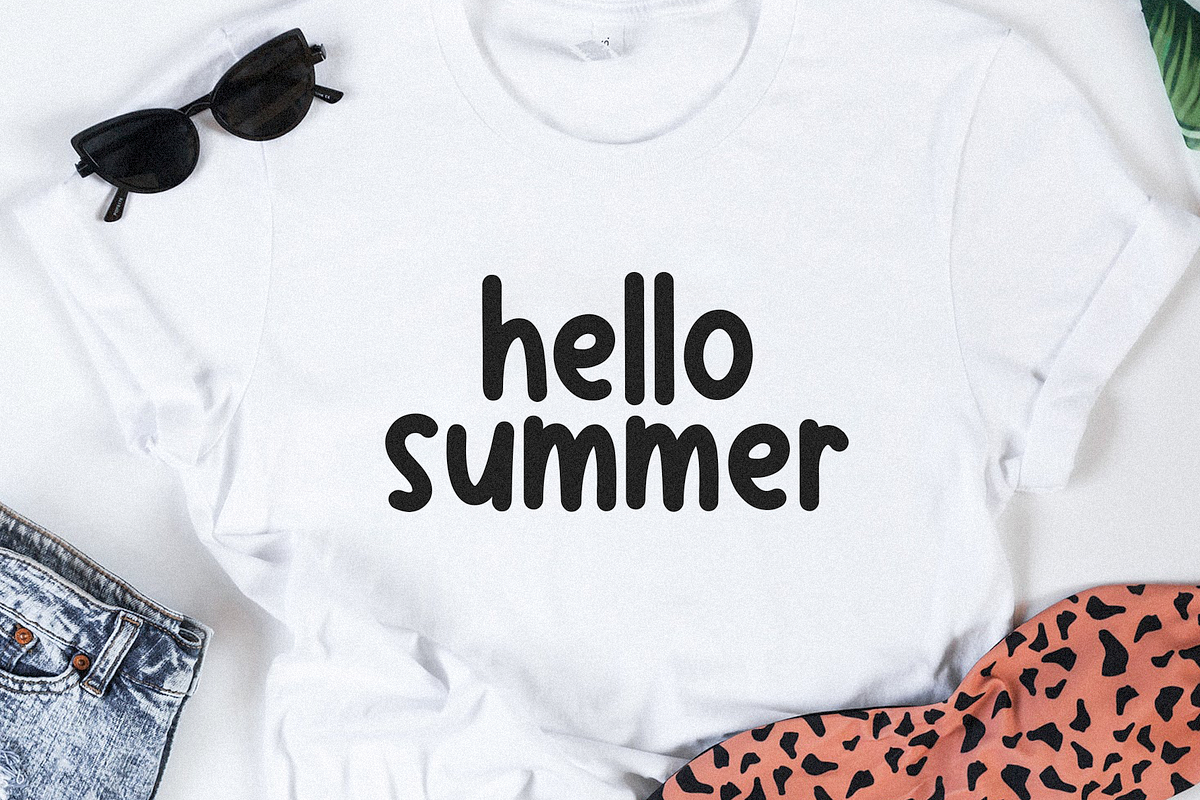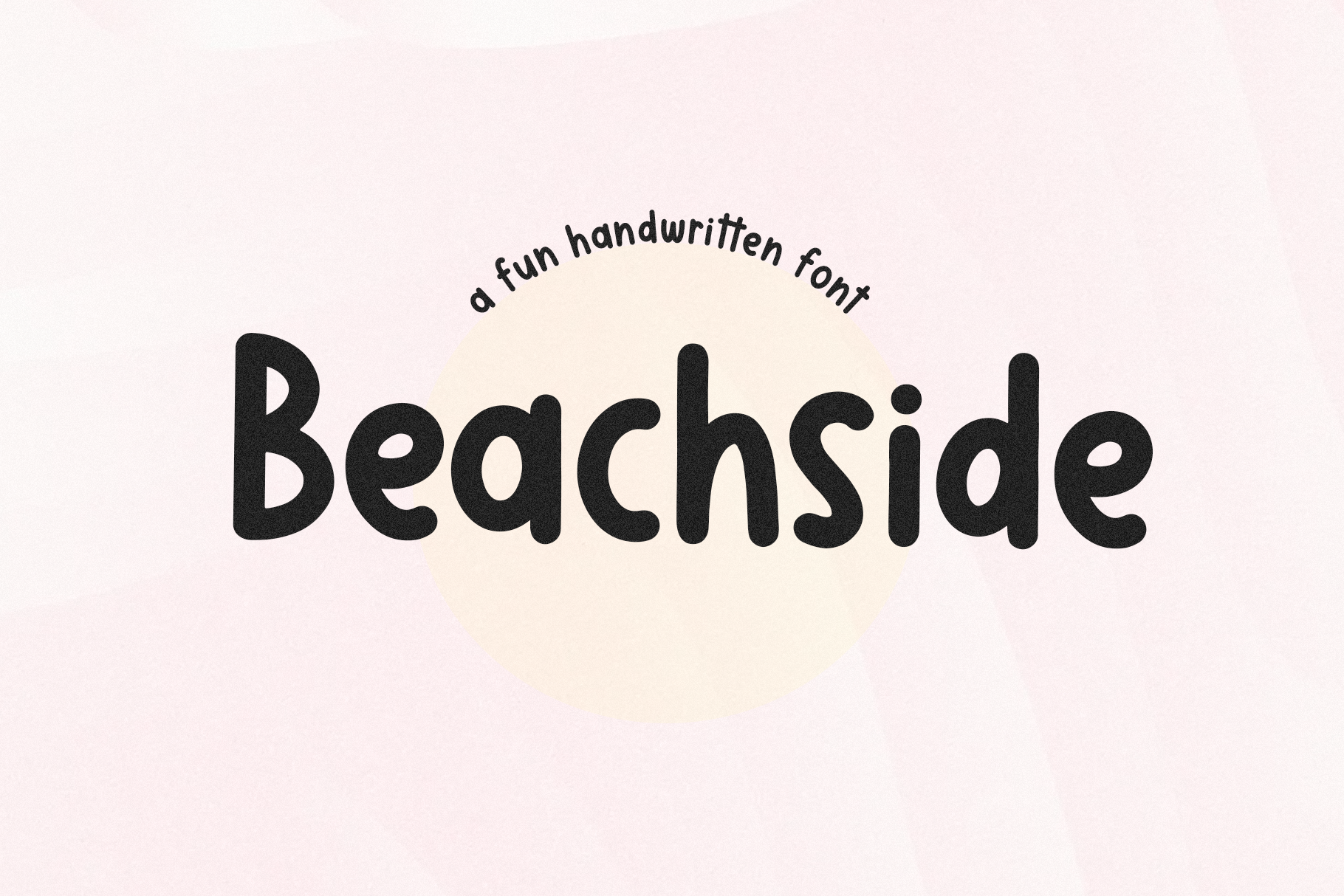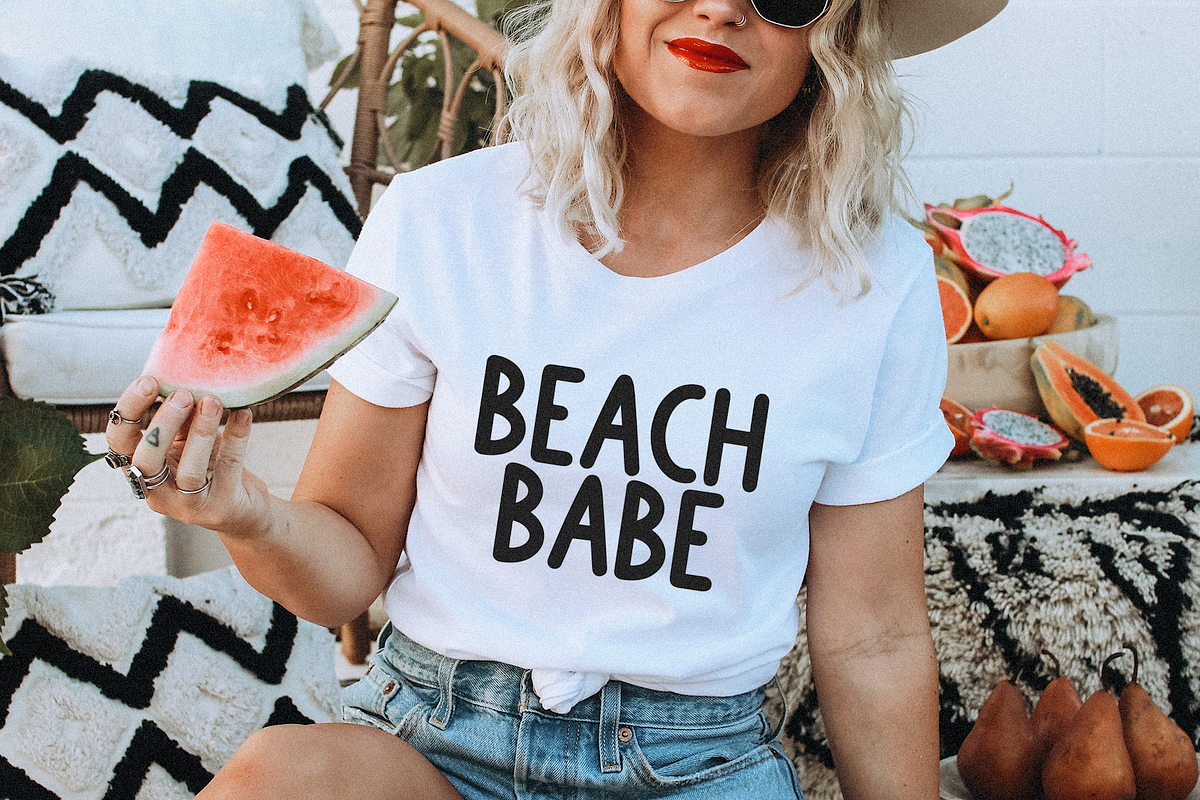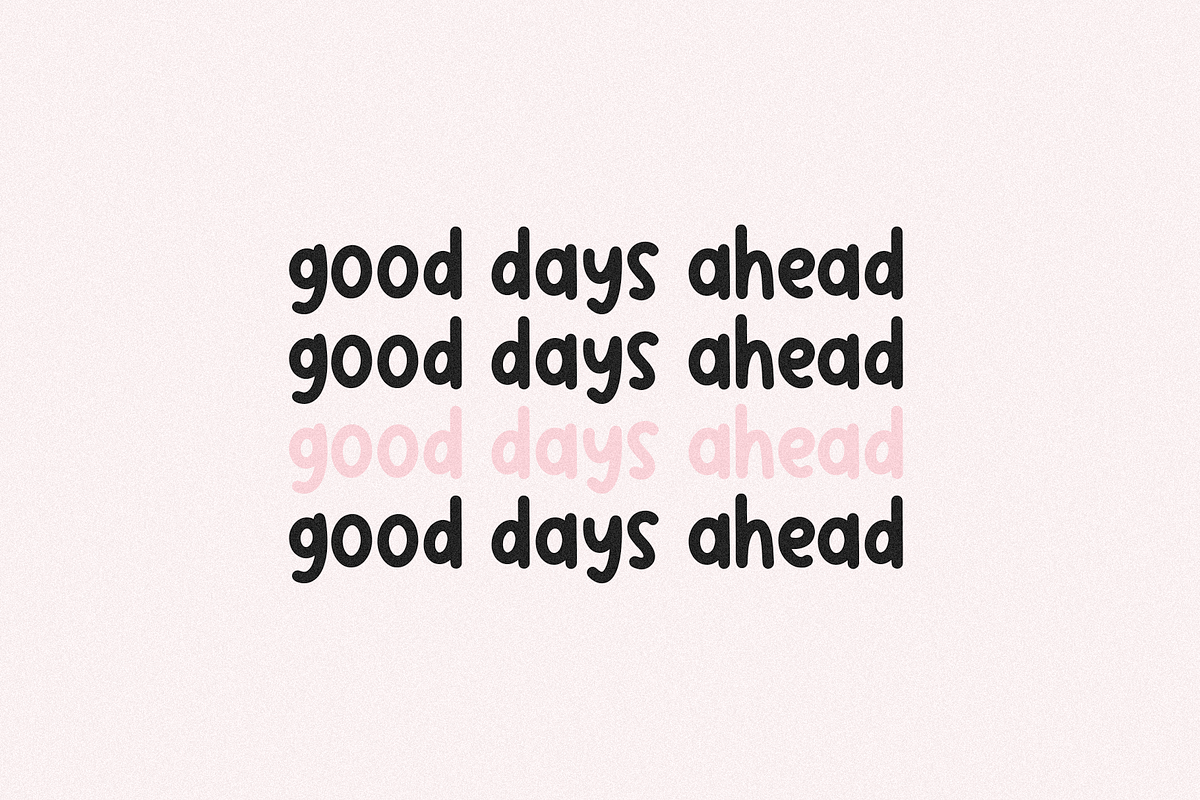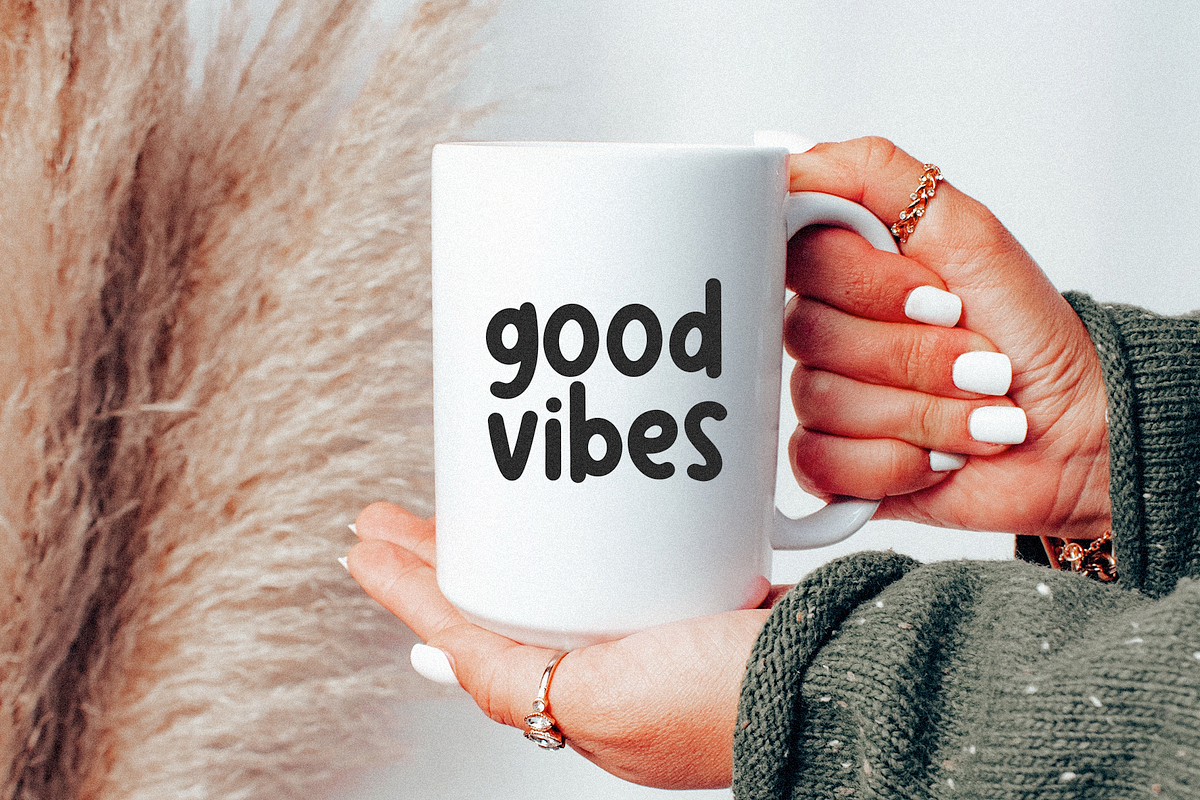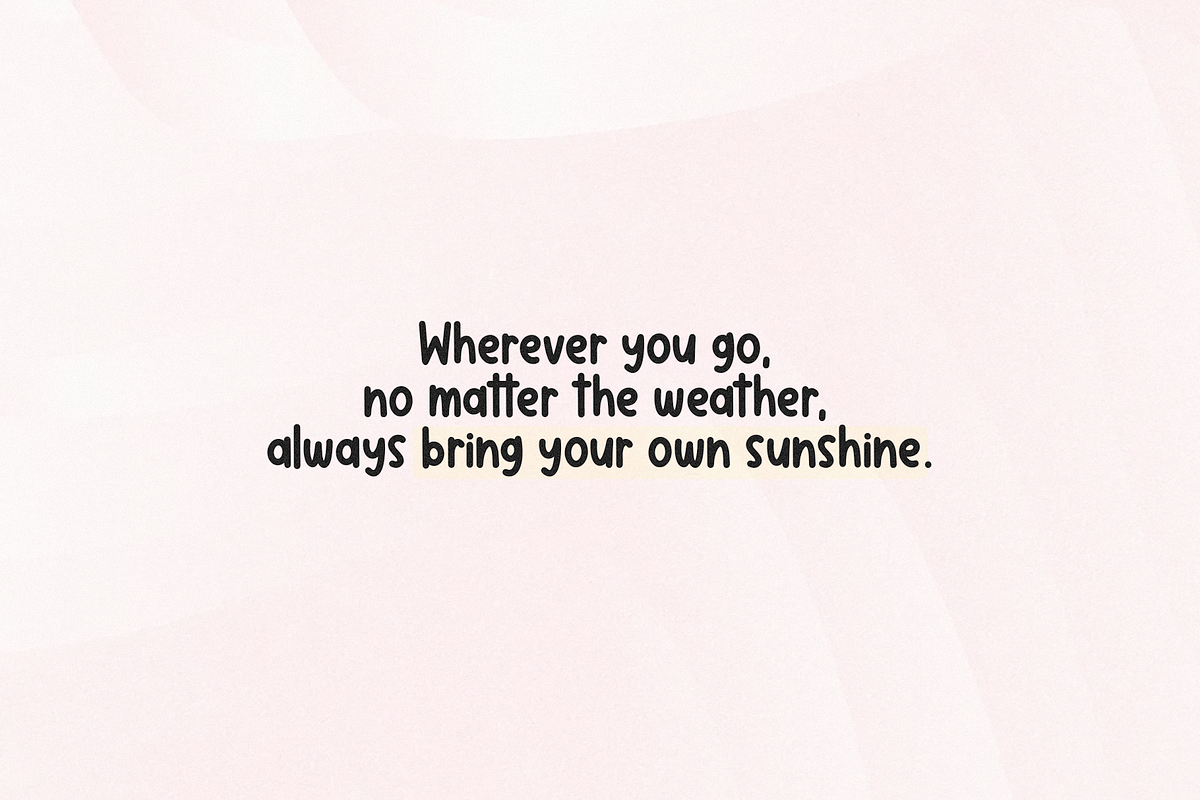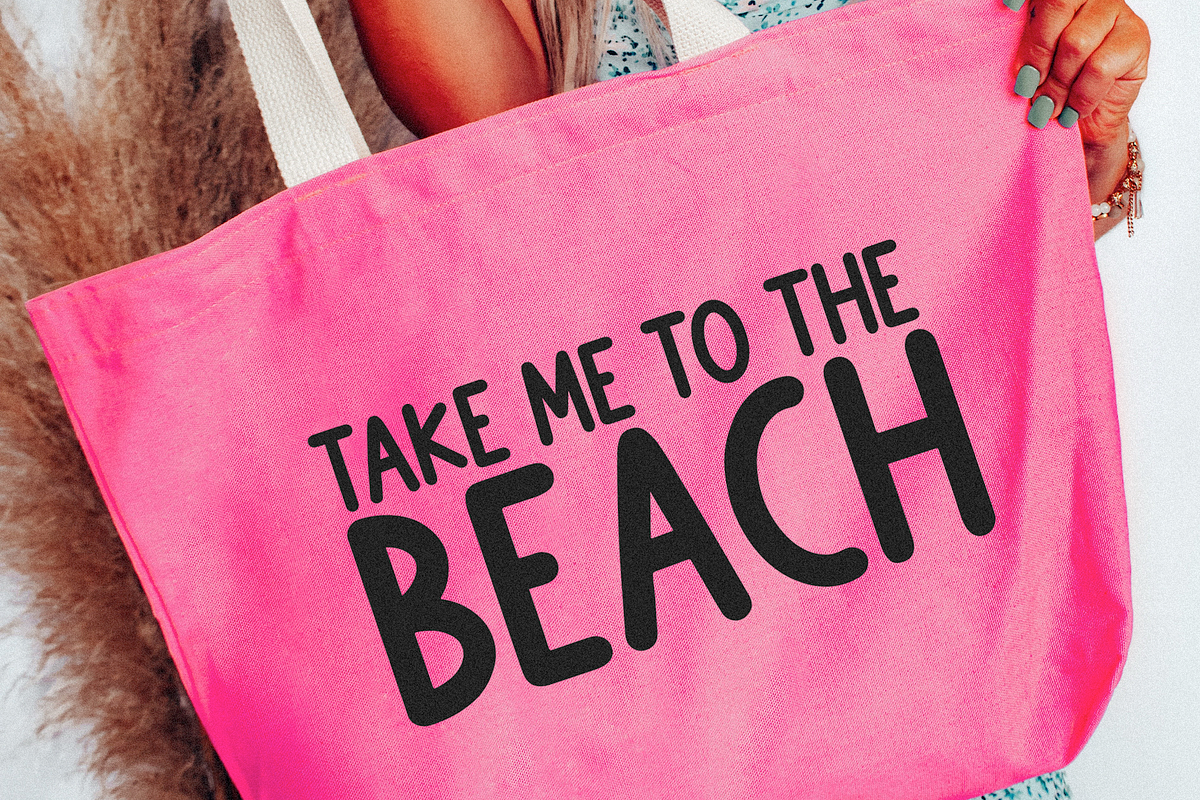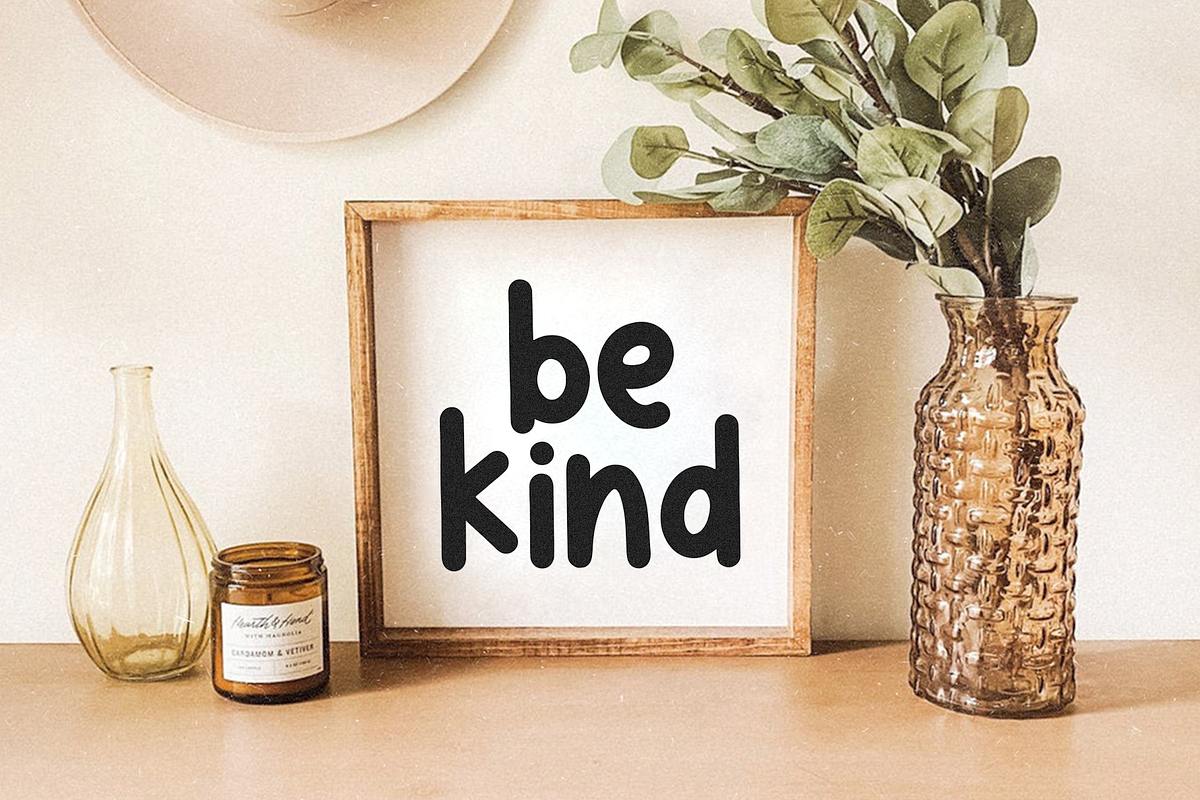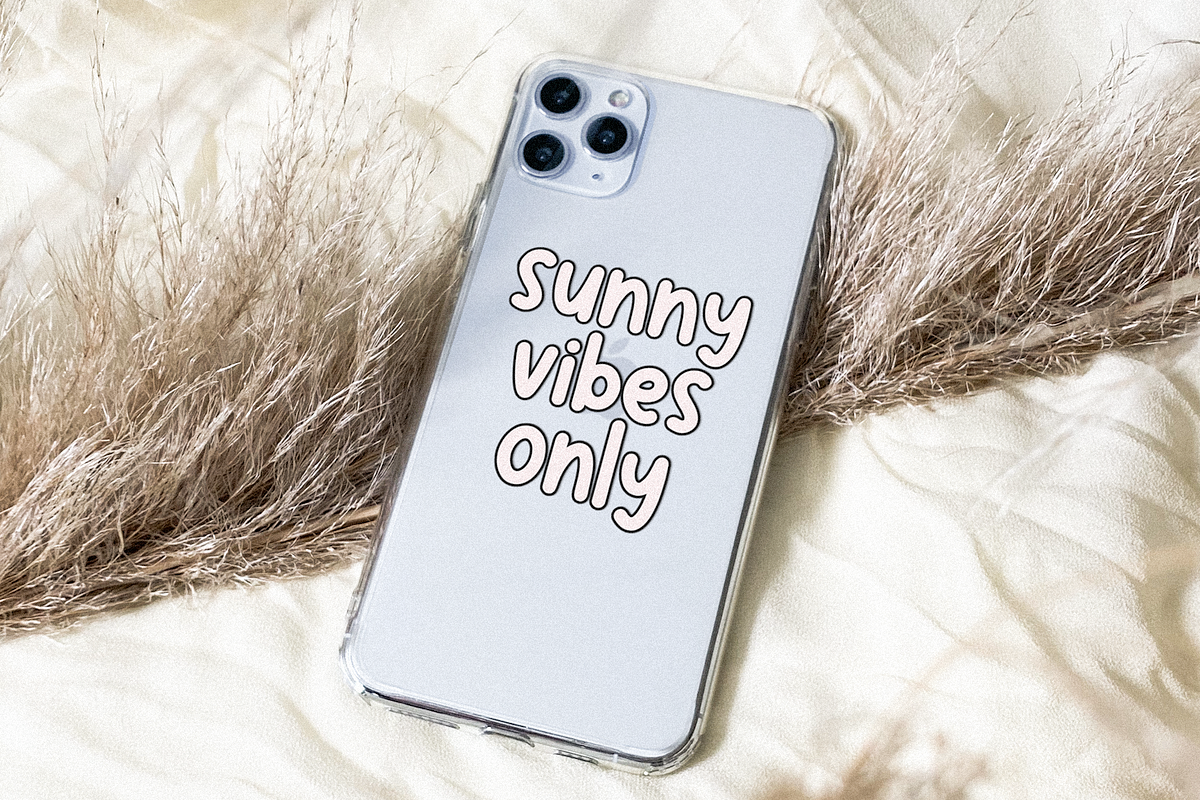
Beachside | Cute Handwritten Font
Beachside is a cute handwriting font.
This font is perfect for cricut projects, quotes, goodnotes, planners, handwritten notes, logos, teachers and more!